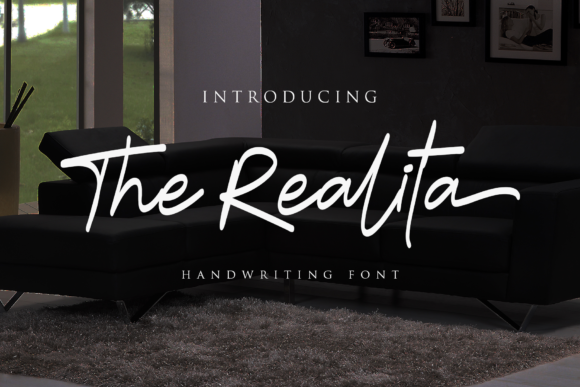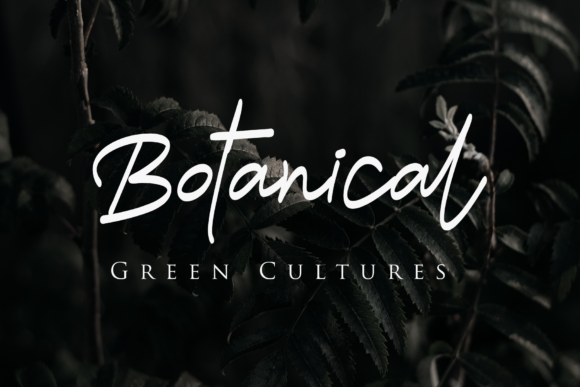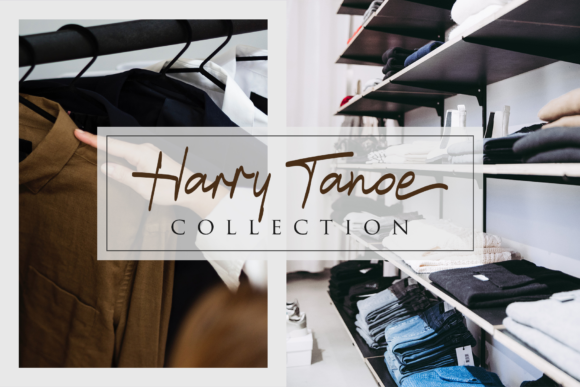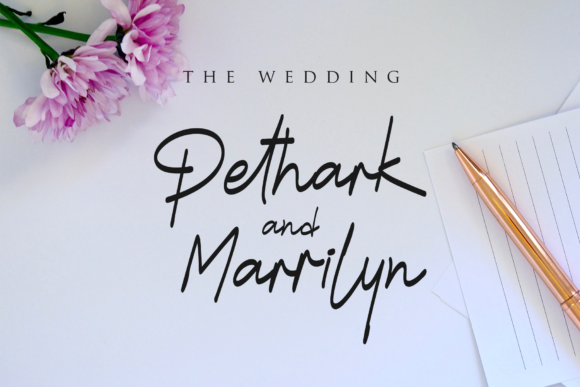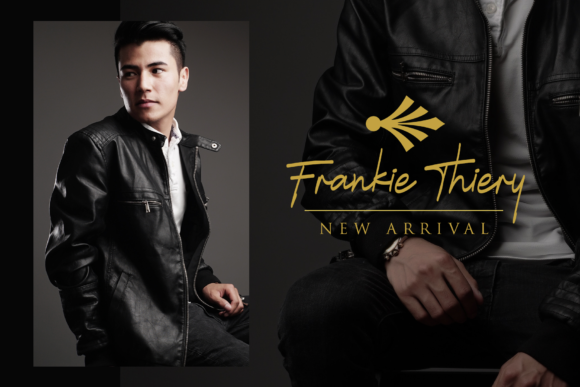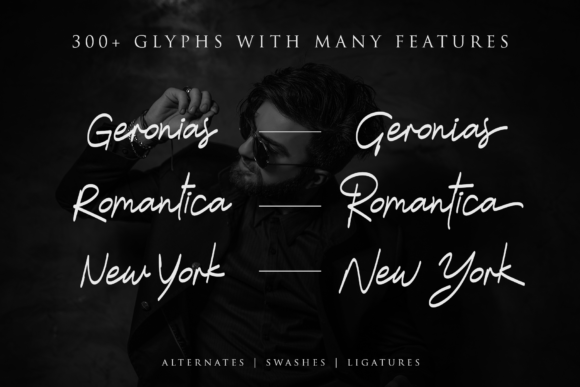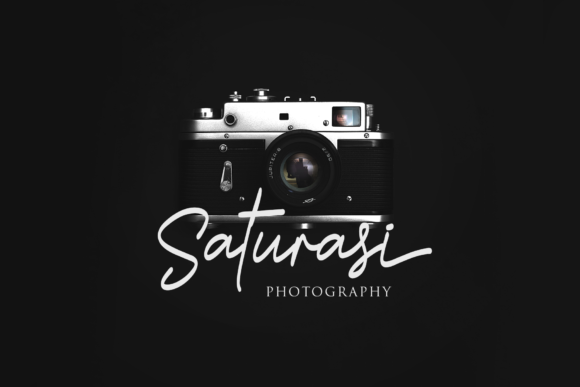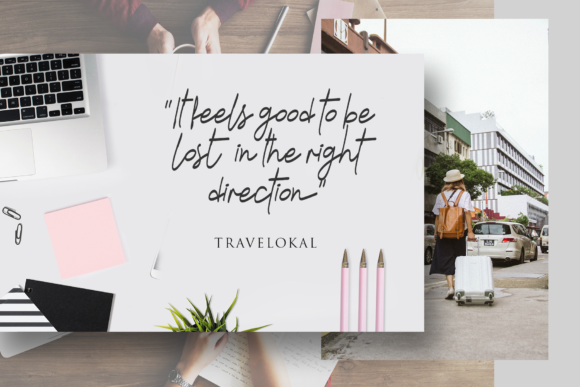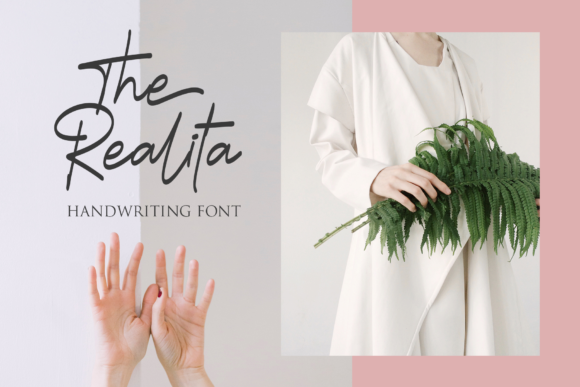
HomeScript FontsThe Realita Font Script Fonts The Realita Font FacebookXPinterestWhatsApp The Realita Font Poster 2 The Realita Font Poster 3 The Realita Font Poster 4 The Realita Font Poster 5 The Realita Font Poster 6 The Realita Font Poster 7 The Realita Font Poster 8 The Realita Font Poster 9 About The Realita Font The Realita is a monoline handwritten font with a bold feel. It will add a unique charm to any design idea! DOWNLOAD ON CREATIVE FABRICAThis font is sold and delivered by Creative Fabrica. Font Canyon may earn a commission if you buy through this link. People also explored Million Font Strong Concrete Font Peeps Monalibra Font History Vintage Font Kencana Font Orange Melon Font Vomade Font Diary Story Font 351 0 TagsThe Realita Font Previous articleCoollyna FontNext articleAlaska Kents Font LEAVE A REPLY Cancel reply Comment: Please enter your comment! Name:* Please enter your name here Email:* You have entered an incorrect email address! Please enter your email address here Website: Save my name, email, and website in this browser for the next time I comment. Personal Use Free Cute Butterfly Personal Use Free Read more about this font Adeline Personal Use Free Read more about this font Stone Cold Personal Use Free Read more about this font BD Pipe Personal Use Free Read more about this font BLOG Best Fonts for T-Shirt Design – Top 2025 Picks In 2025, t-shirt design has become more than just fashion—it's a form of self-expression. Whether you're... Free Fonts Risk: Why Free Fonts Can Be Dangerous for Designers Where to Buy American Fonts Online in 2024 5 Fonts That Will Dominate Design Trends in 2026